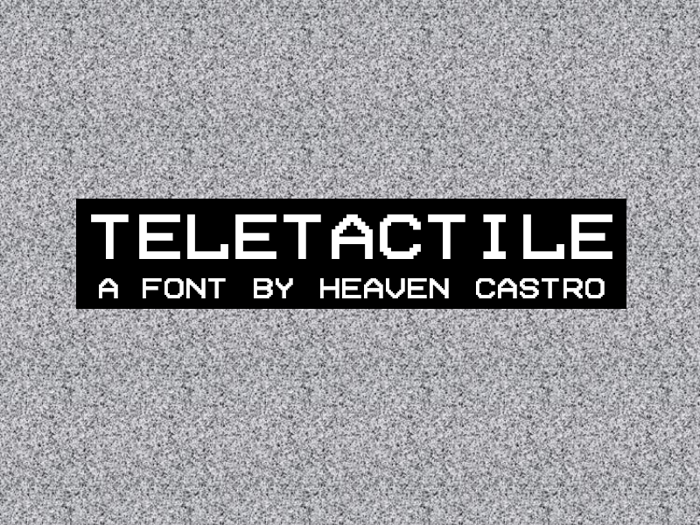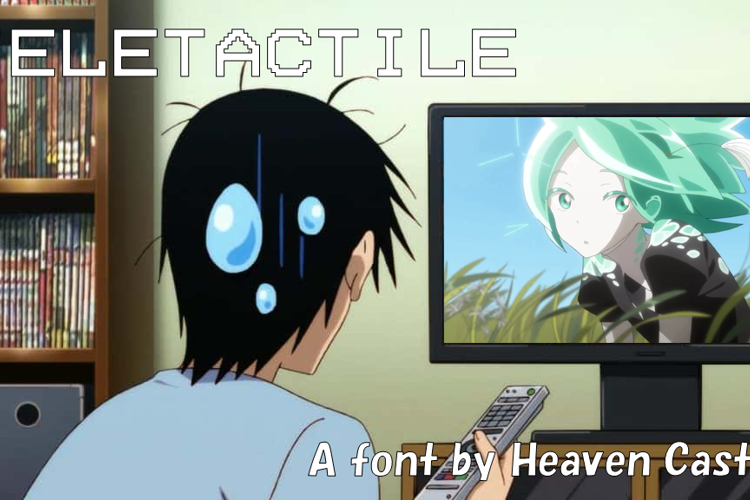
Teletactile Font
Teletactile is a VHS/Vintage Television font inspired by the lettering found on old VCR recordings for the childhood and old analog television.